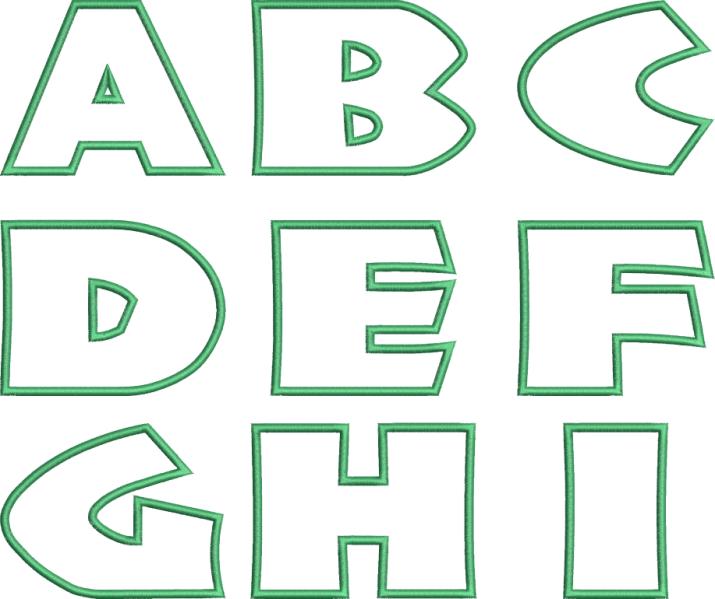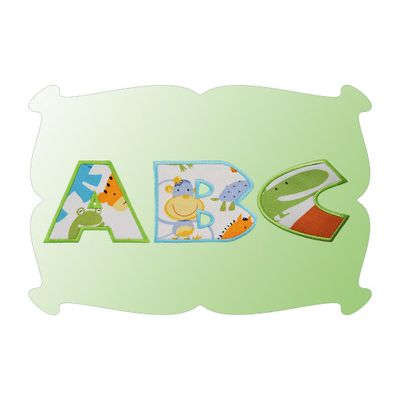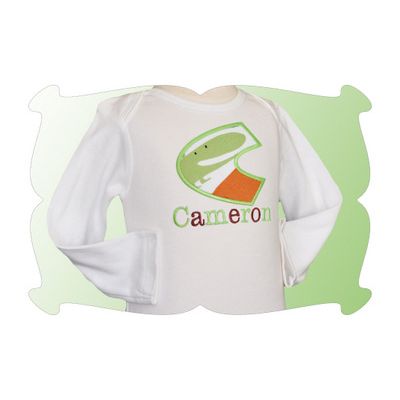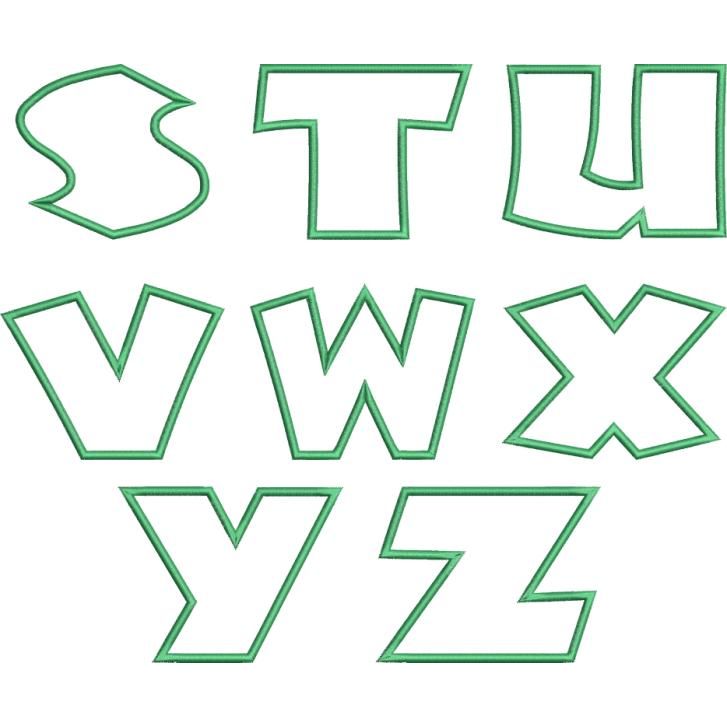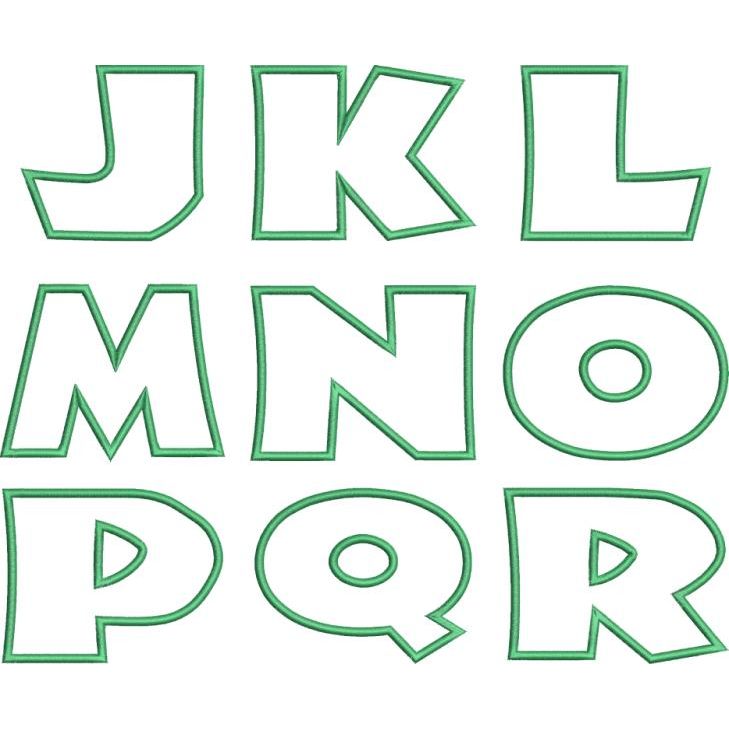
Safari Satin Stitch Applique Monogram Embroidery Font
Safari Applique Font
I love this wide font because it shows lots of fabric.
Super cute for your little adventurer!
Included are capital letters A thru Z: